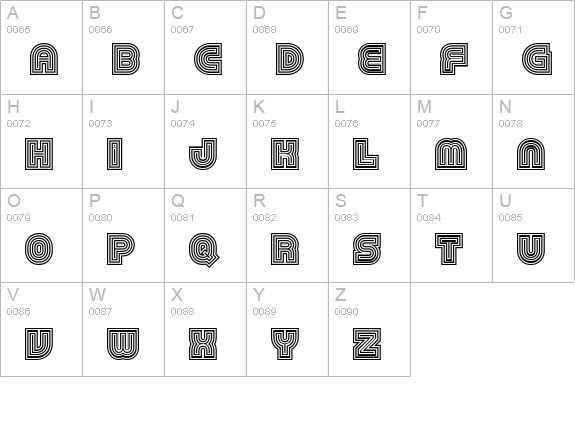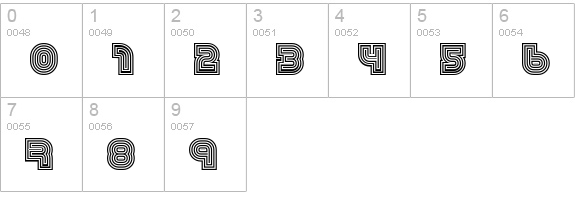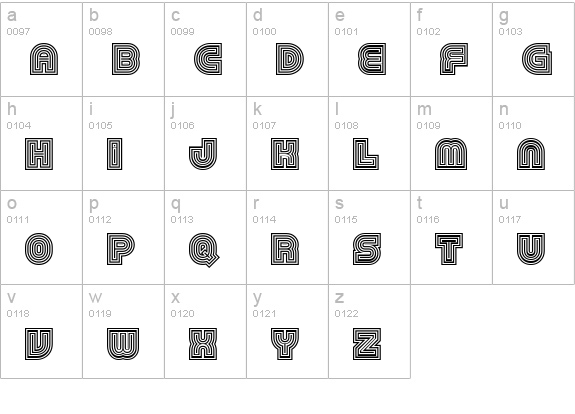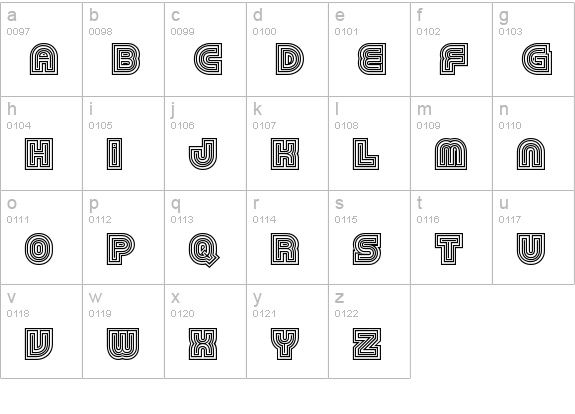
Introducing the captivating and nostalgic 79 retro font! This stunning typeface effortlessly combines vintage charm with a modern twist, making it perfect for a wide range of creative projects. With its bold strokes and unique retro flair, 79 retro font is sure to make your designs stand out from the crowd. And the best part? It's completely free! That's right, you can download this fantastic font at no cost from FontsMarket.com. Whether you're working on a retro-inspired poster, a vintage logo, or any other design project, 79 retro font is here to add that extra touch of retro goodness. Don't miss out on this amazing opportunity to enhance your creative work with this fantastic font!